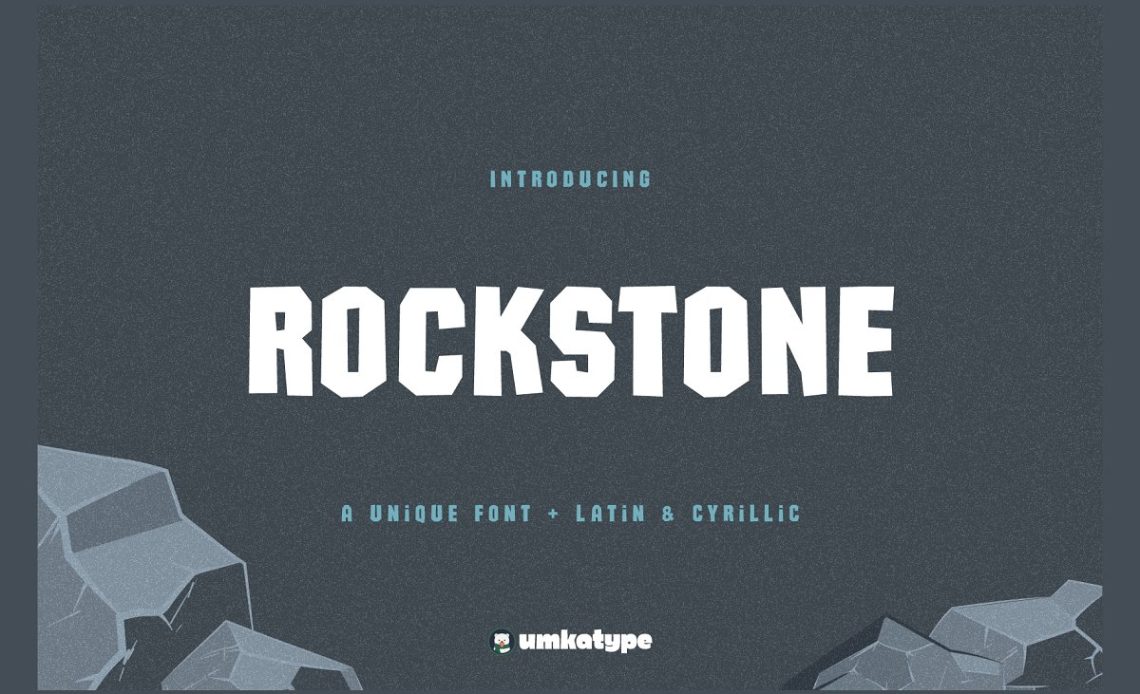
Are you searching for the perfect font to make your modern CV stand out? Look no further than Rockstone Font, the best font for a modern CV! Created by Umka Type, this carefully crafted sans serif display font is the perfect addition to any design project.
One of the unique features of Rockstone is its multilingual capabilities, with extended Latin and Cyrillic letters included. This makes it perfect for global projects and diverse audiences. Additionally, Rockstone includes webfont formats in TTF, OTF, WOFF, and WOFF2, ensuring that it can be used across a variety of platforms.
Rockstone was specifically created for use in games, web design, branding, and social media projects. It's versatile and eye-catching, making it perfect for any design project that needs a little extra something.
In short, Rockstone is the perfect choice for anyone looking for a modern, eye-catching font for their design project. With its unique features, multilingual capabilities, and excellent customer support, it's a font that you won't want to miss out on.